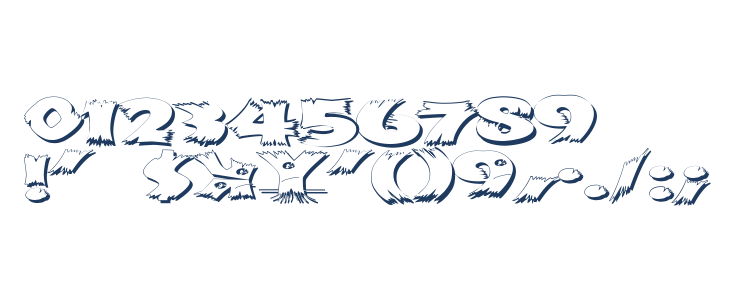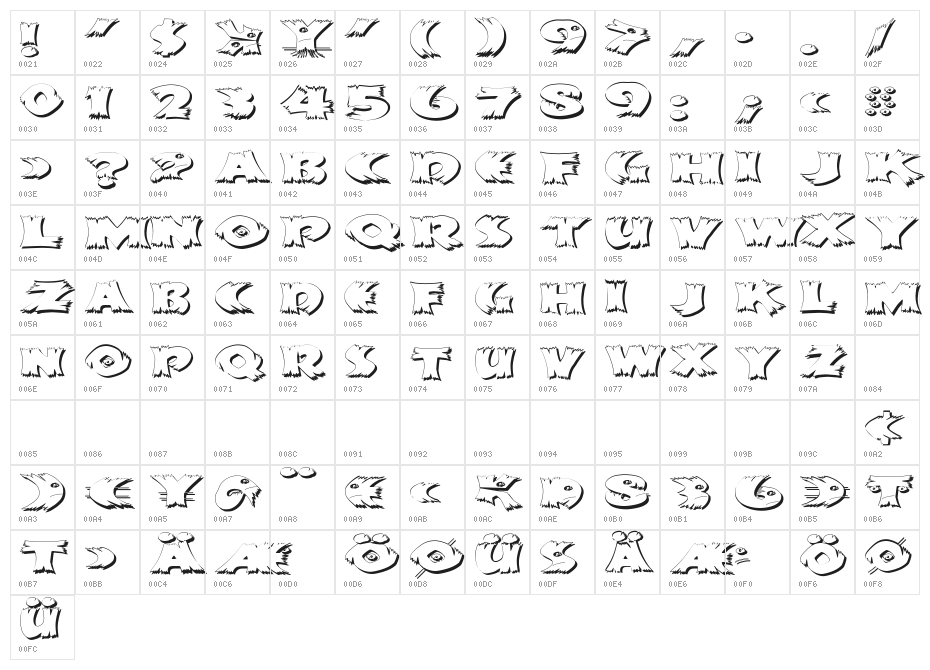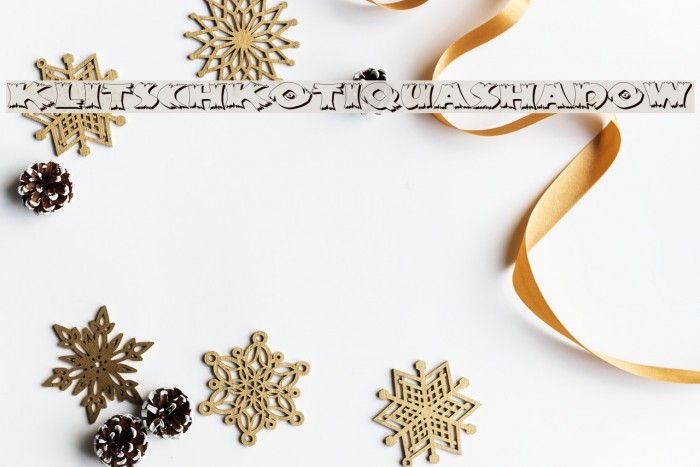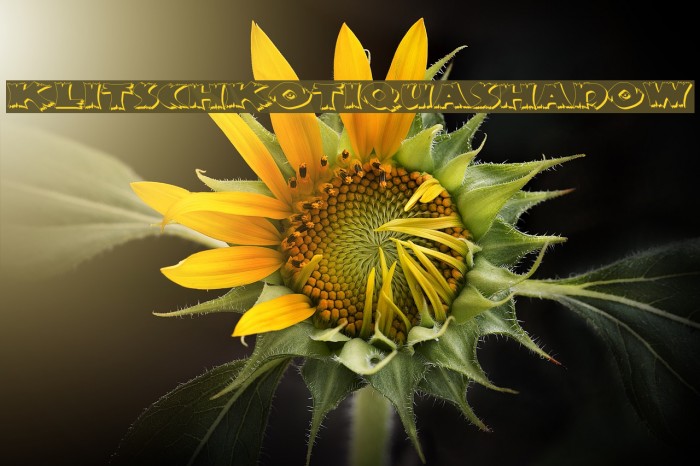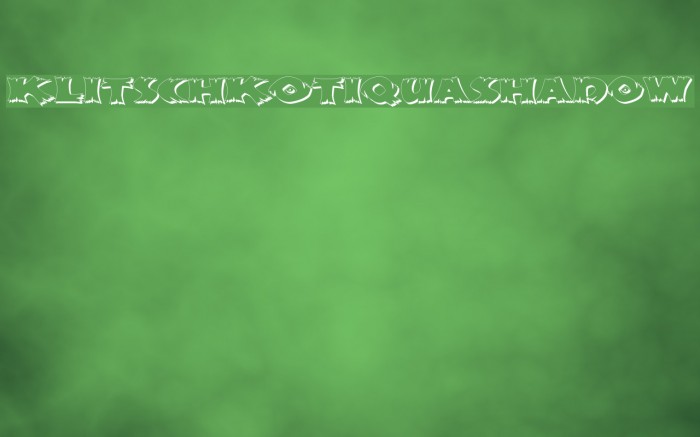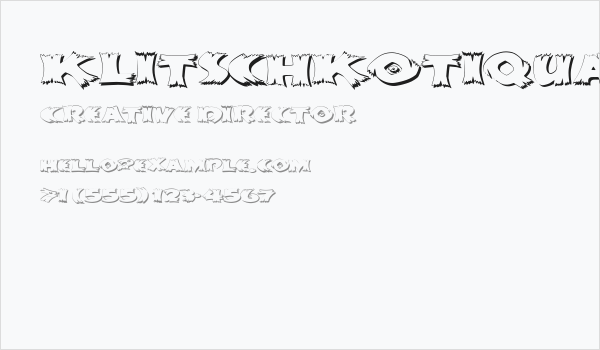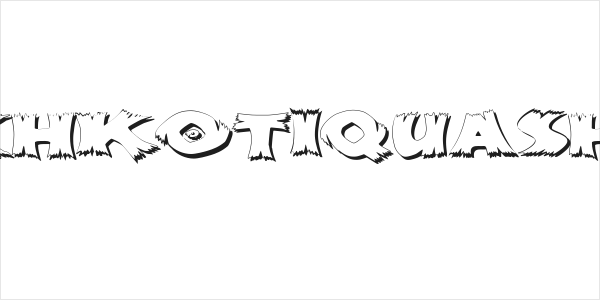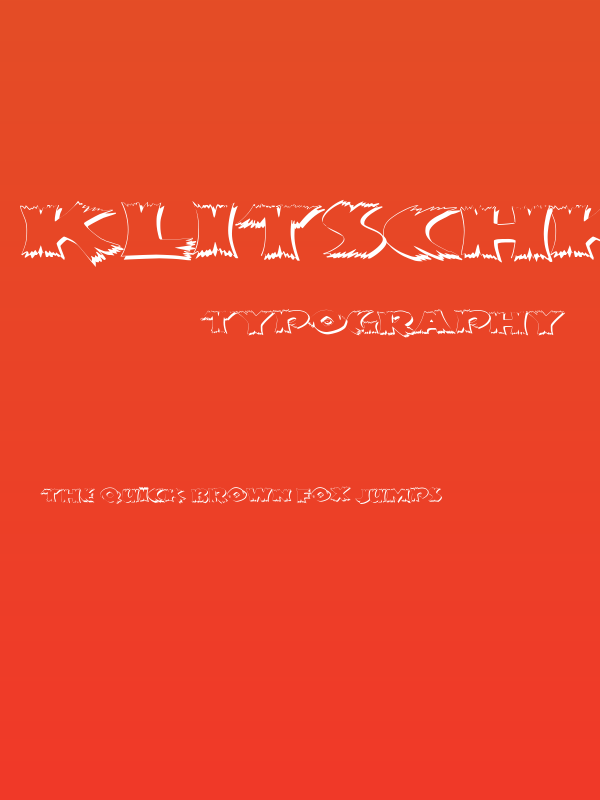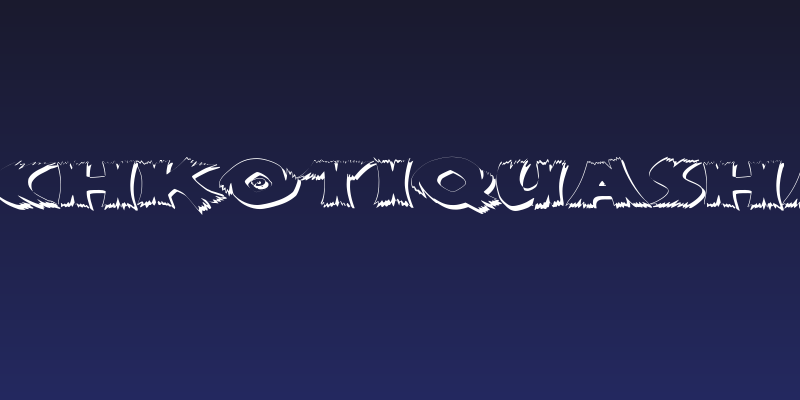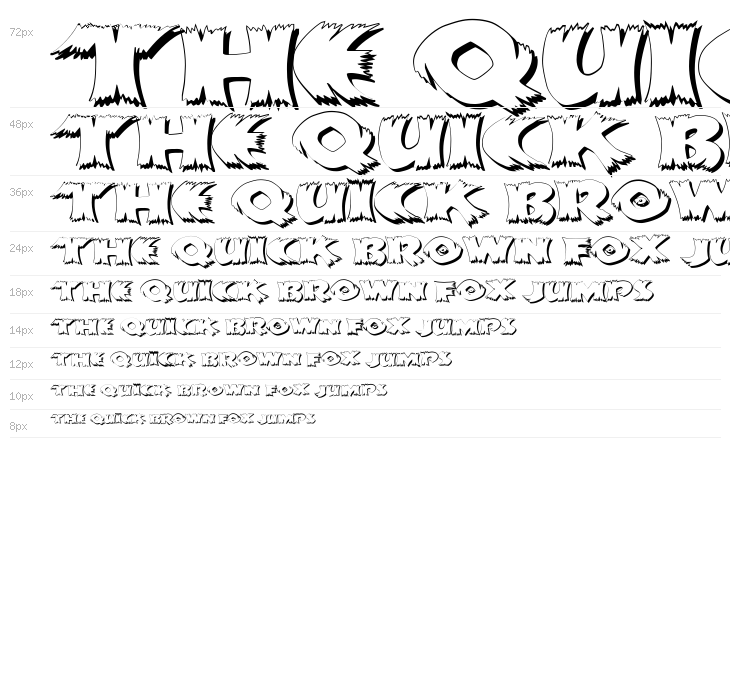
KlitschKOtiquaShadow Font
KlitschKOtiquaShadow Description
This font features a bold and dynamic design with a shadow effect that gives it a three-dimensional appearance. The characters are stylized with jagged edges and irregular outlines, creating a sense of movement and energy. The uppercase and lowercase letters maintain a consistent style, with the numbers and special characters following suit. The font's unique design makes it stand out, making it ideal for projects that require a bold and eye-catching typeface.
| Proposed Projects | Ideal for posters, video game titles, comic book covers, and any project needing a bold, energetic typeface. |